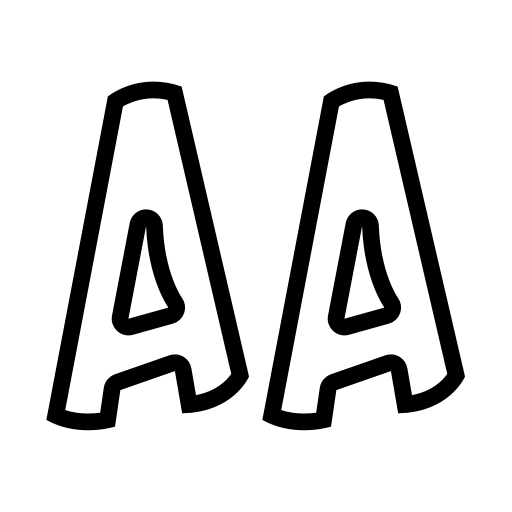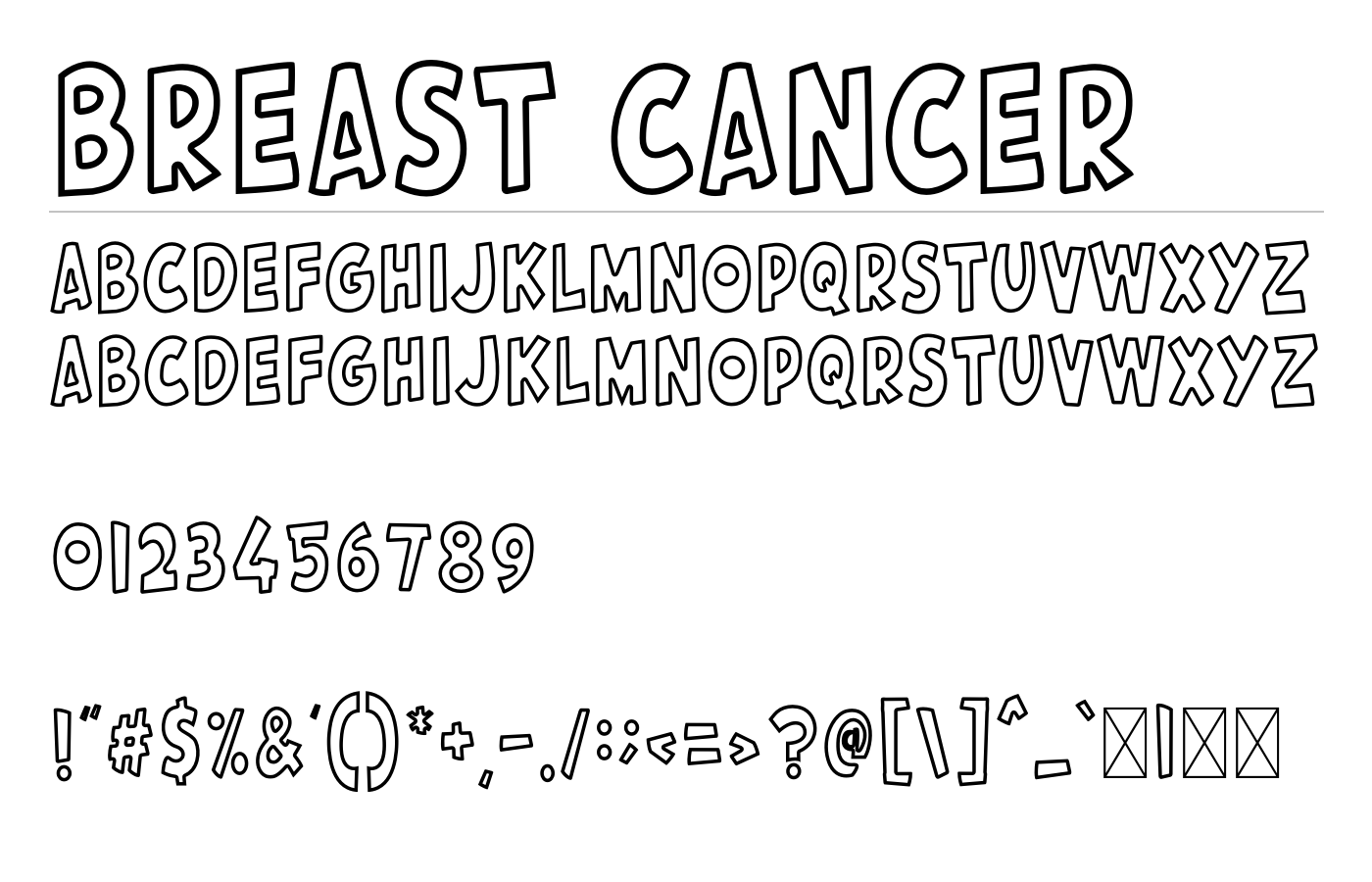
Breast Cancer Font is a playful and informal sans serif typeface characterized by bold, uneven lines and quirky, hand-drawn letterforms that give it a friendly, approachable feel. Its irregular shapes and lively style make it ideal for designs aiming to convey warmth and positivity, such as awareness campaigns, children's materials, or casual branding. This font works best in headlines, posters, and packaging where a cheerful, unique touch is desired.
Breast Cancer Font